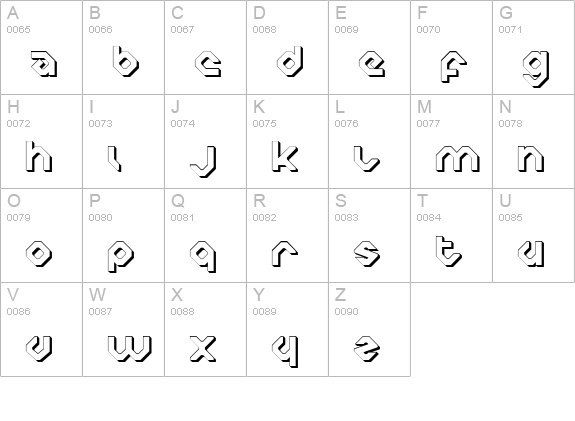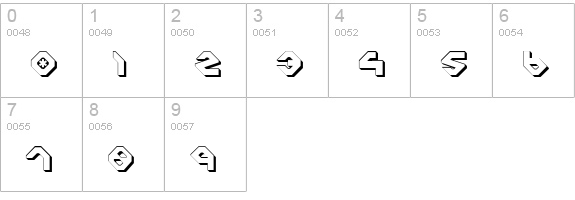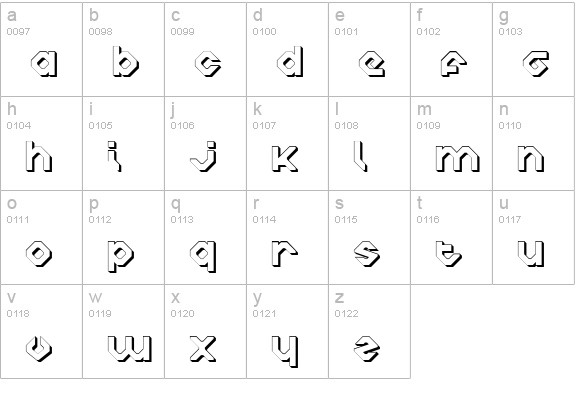
Charlie's Angles Shade Font Details
Introducing Charlie's Angles Shade font, a stylish and dynamic typeface that exudes confidence and charm. This font brings a touch of sophistication to any project with its sleek lines and sharp angles. Perfect for creating eye-catching headlines, logos, and branding materials, Charlie's Angles Shade font is sure to make a statement. What sets this font apart is its unique shading effect, adding depth and dimension to your designs. Whether you're working on a poster, flyer, or website, this font will instantly elevate your work to the next level. Best of all, Charlie's Angles Shade font is available for free download at FontsMarket.com. So why wait? Add a touch of elegance to your projects today with this stunning typeface.